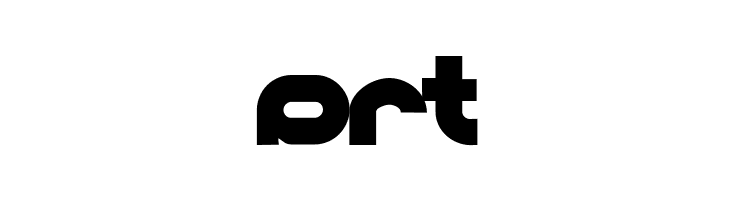
A bold, playful font with chunky, rounded characters.
A bold, classic serif font with strong, elegant letterforms.
A bold, geometric font with sharp angles and a faceted design.
An ornate and decorative font with intricate blackletter-inspired designs.
A bold, Gothic-inspired blackletter font with intricate details and a medieval aesthetic.
A bold, blackletter-style font with intricate, angular letterforms.
A bold, jagged font with a mystical, blackletter-inspired style.